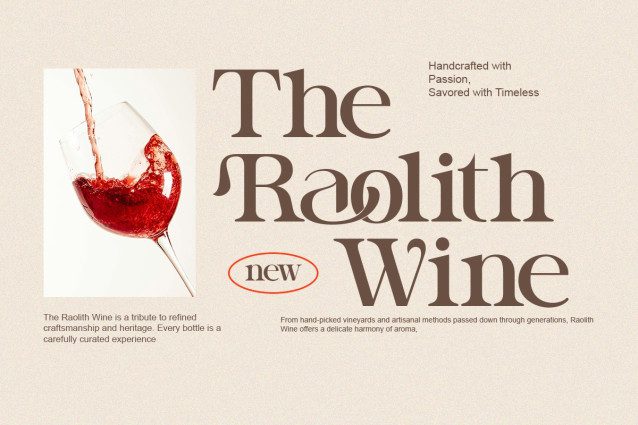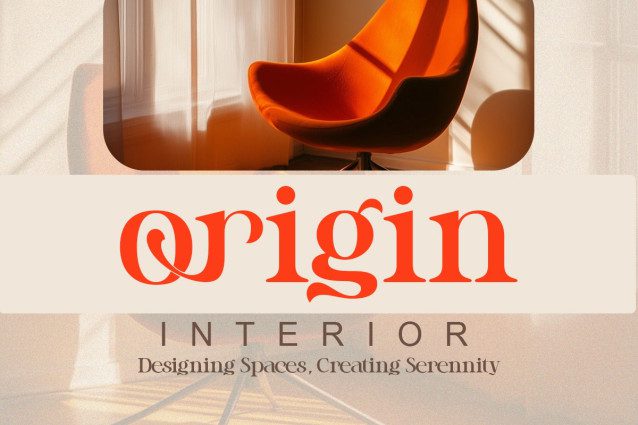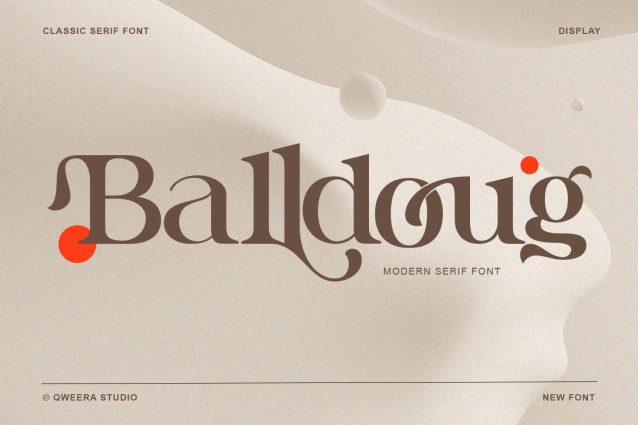
Balldoug Font
Balldoug Font a modern serif font with elegant contrast, fluid curves, and artful ligatures. Balldoug is designed to deliver character and sophistication through every letter. The subtle retro cues, stylish terminals, and unique ligature combinations make it a top-tier choice for refined creative projects.
Ideal for designers who seek timeless elegance with a modern sensibility. Perfect for brand identities, product packaging, editorial headlines, or web typography, Balldoug brings a sense of class and clarity to every application.